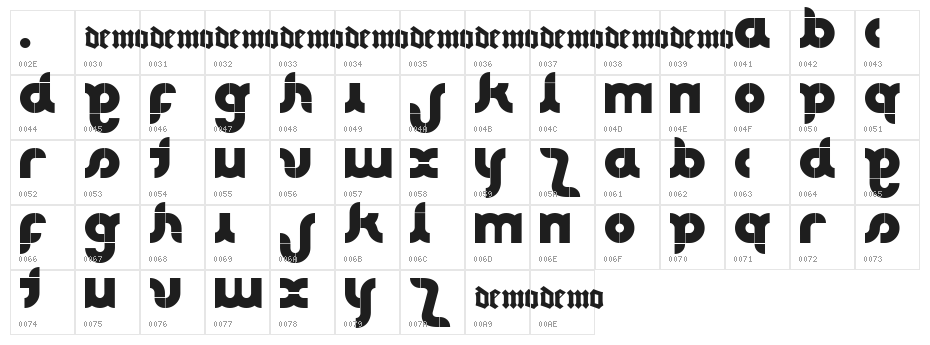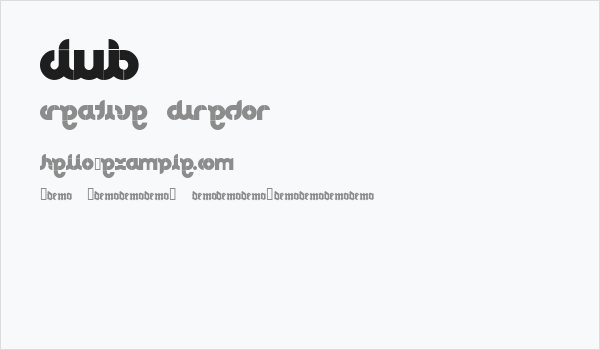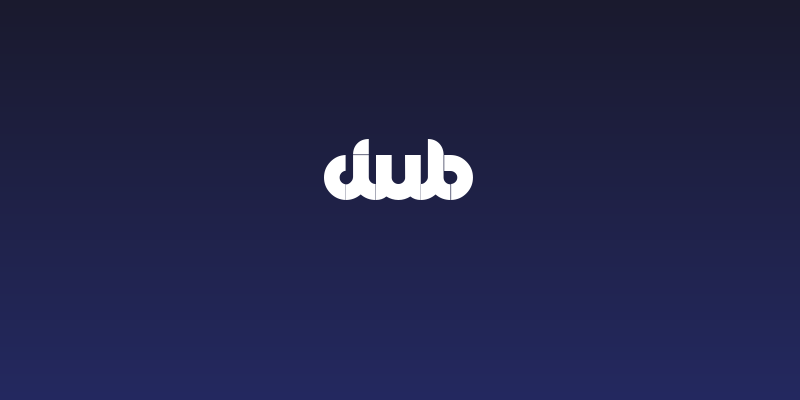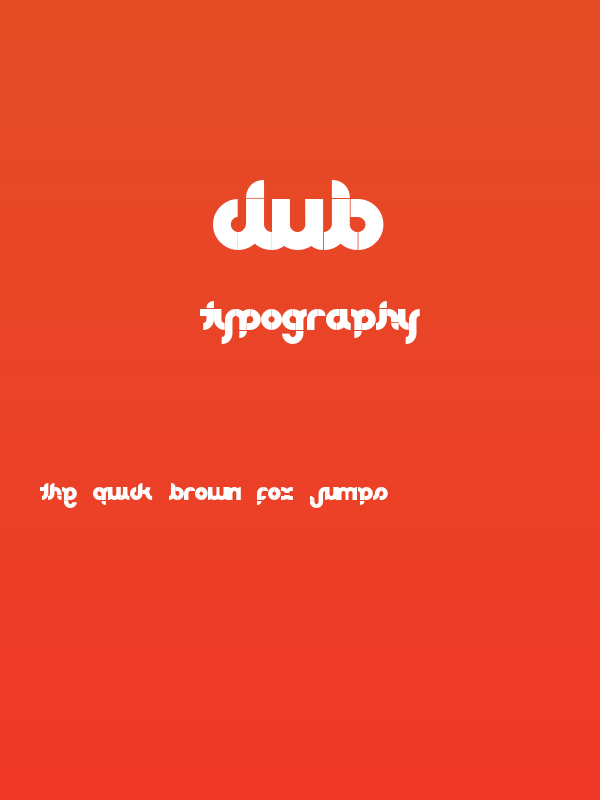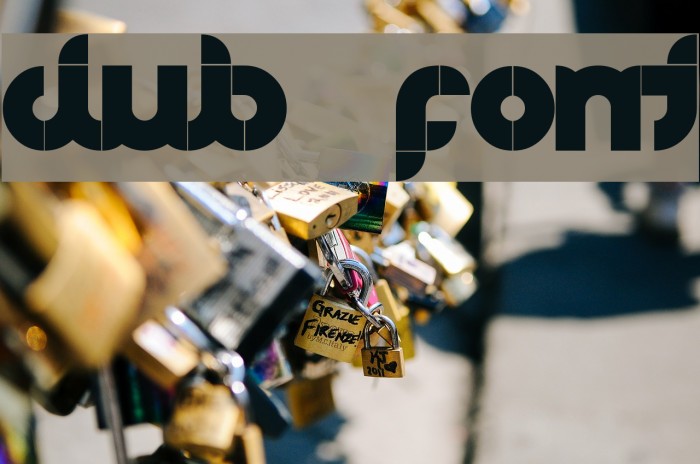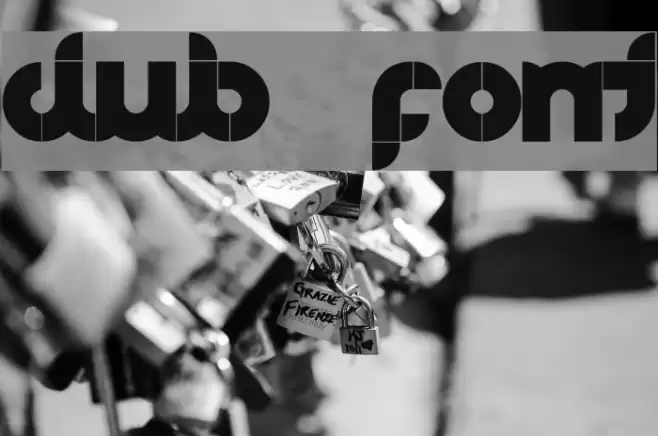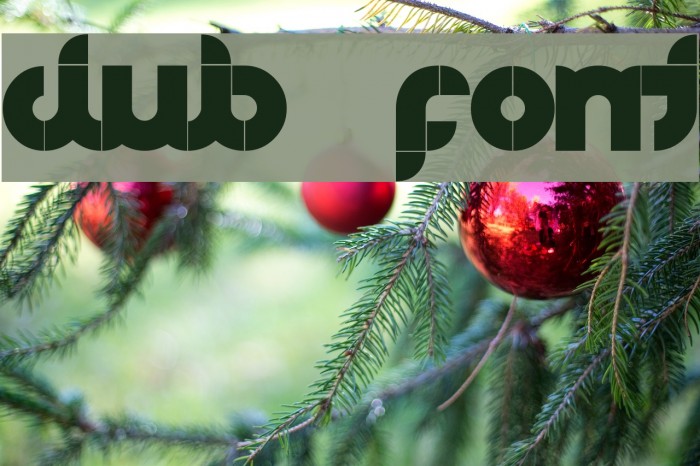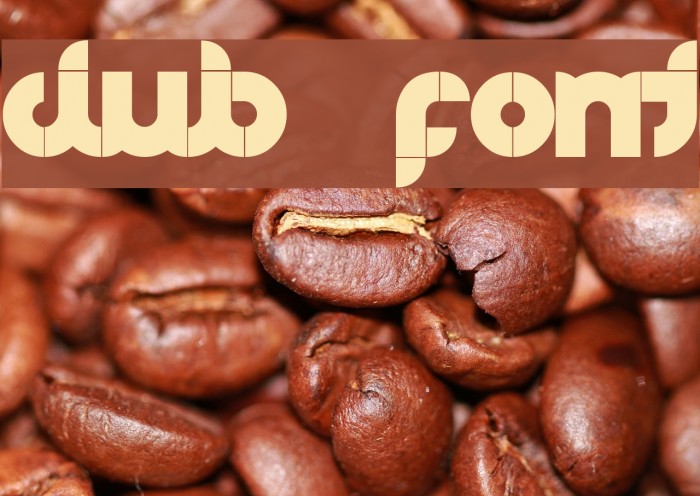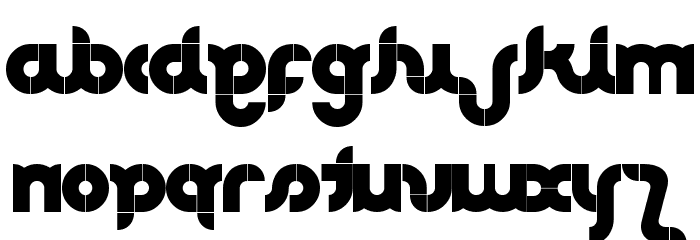
CLUB Font
CLUB Description
This font features a bold and geometric design with a distinct modular appearance. The characters are constructed with thick, uniform strokes and rounded edges, creating a cohesive and modern look. The uppercase and lowercase letters share a similar structure, emphasizing symmetry and balance. The numbers and special characters maintain the same bold style, ensuring consistency across all elements. The font's unique design makes it stand out, ideal for projects that require a strong visual impact.
| Proposed Projects | Ideal for branding, posters, headlines, and any design project that requires a strong and modern aesthetic. |